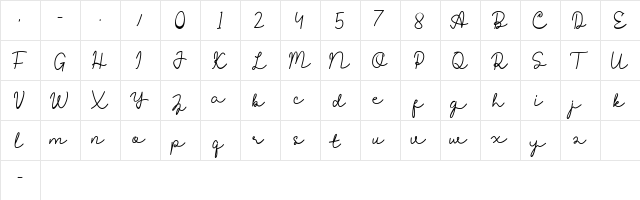
Reysha Regular
Design Context for Reysha Typeface
Reysha is a composed and adaptable typeface that performs quietly and consistently across a wide range of design contexts.
Pro Tip: Use Reysha in both headline and body roles to test its range before committing to a single application.